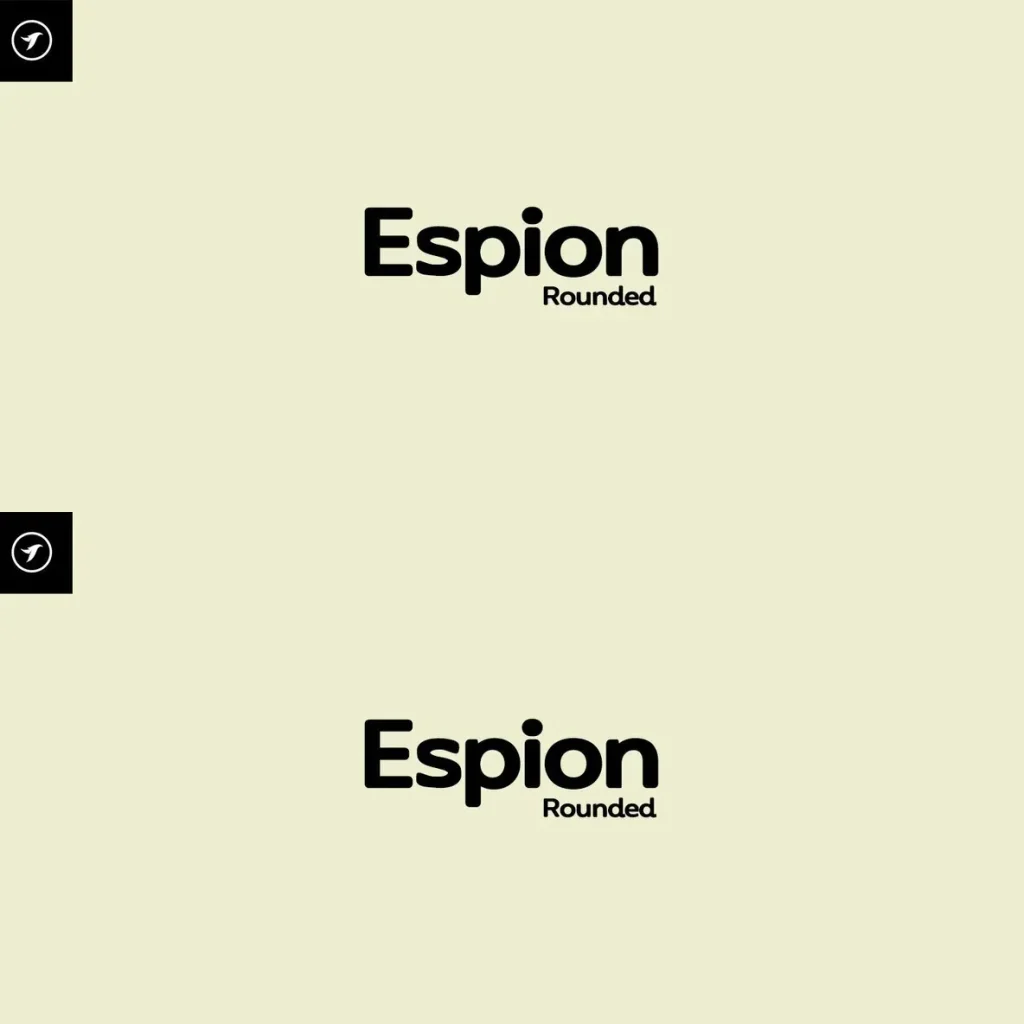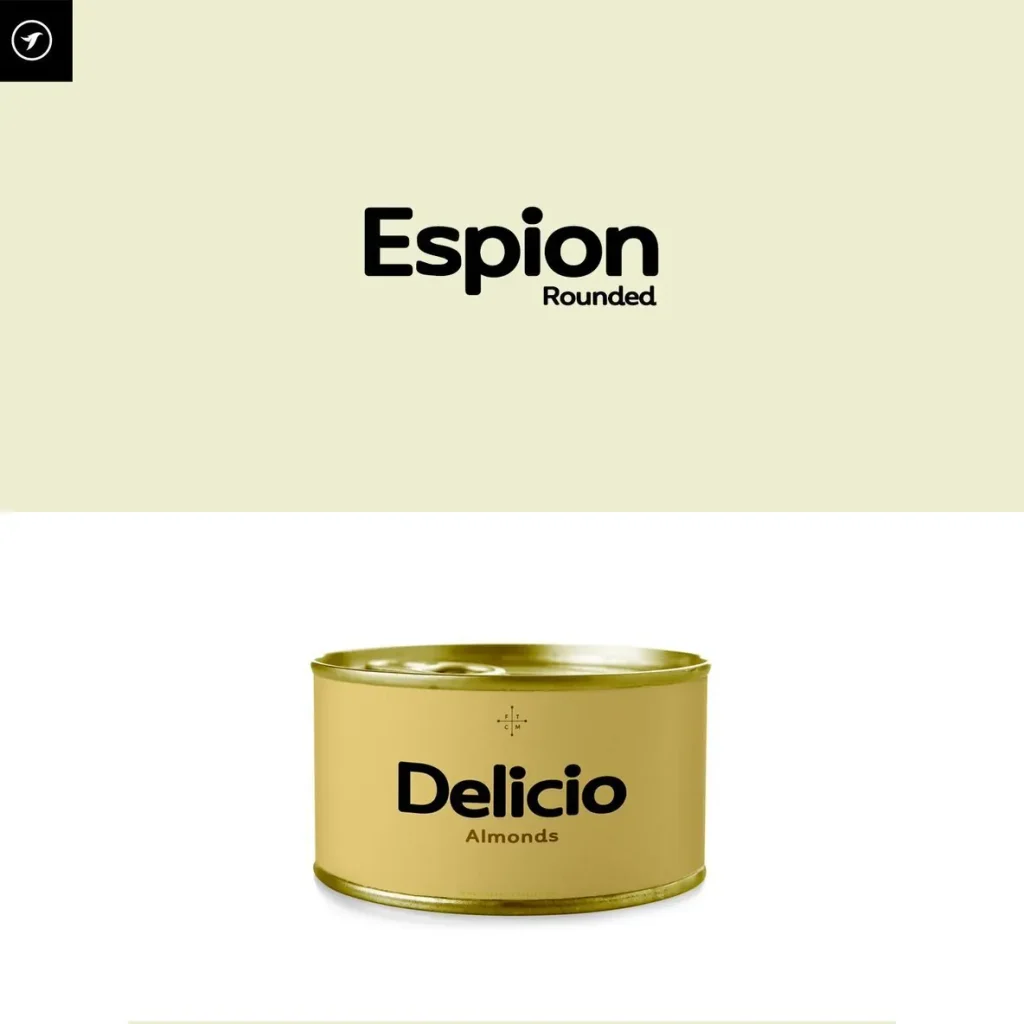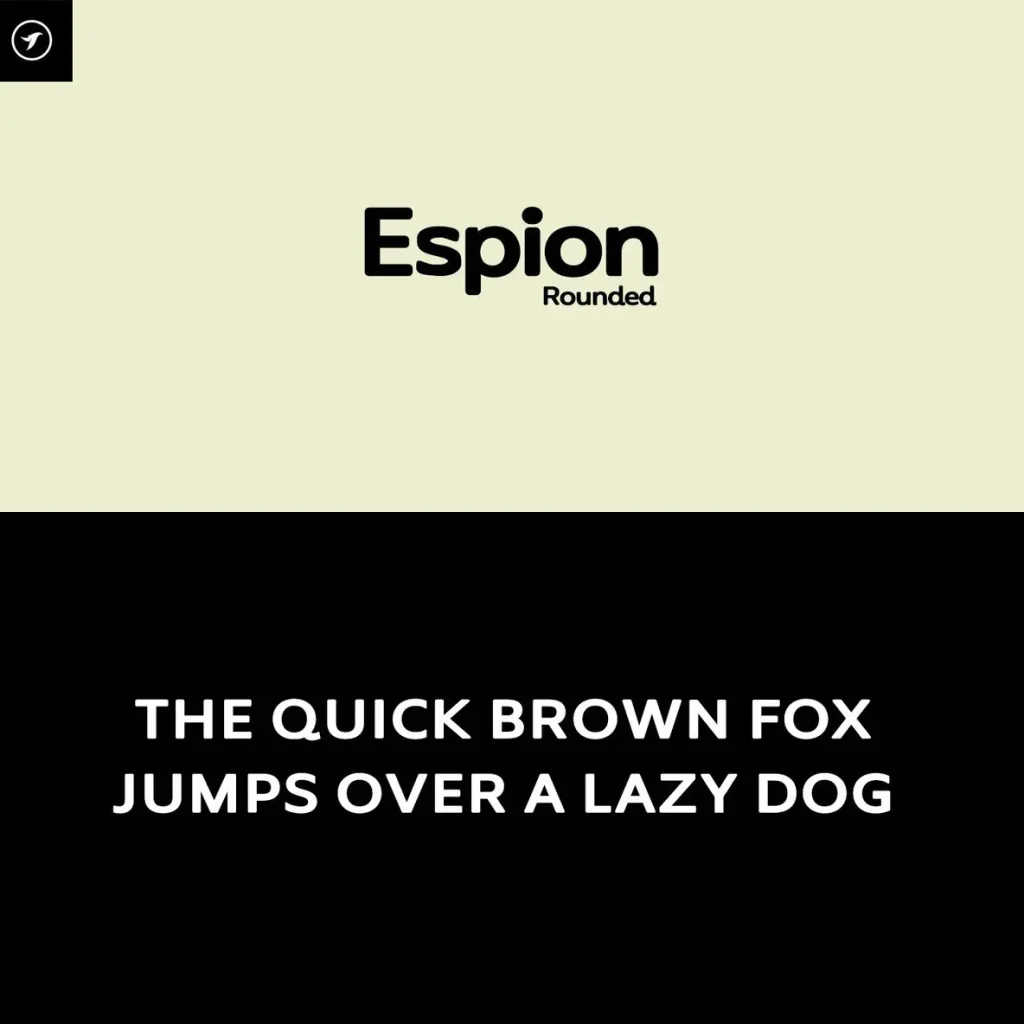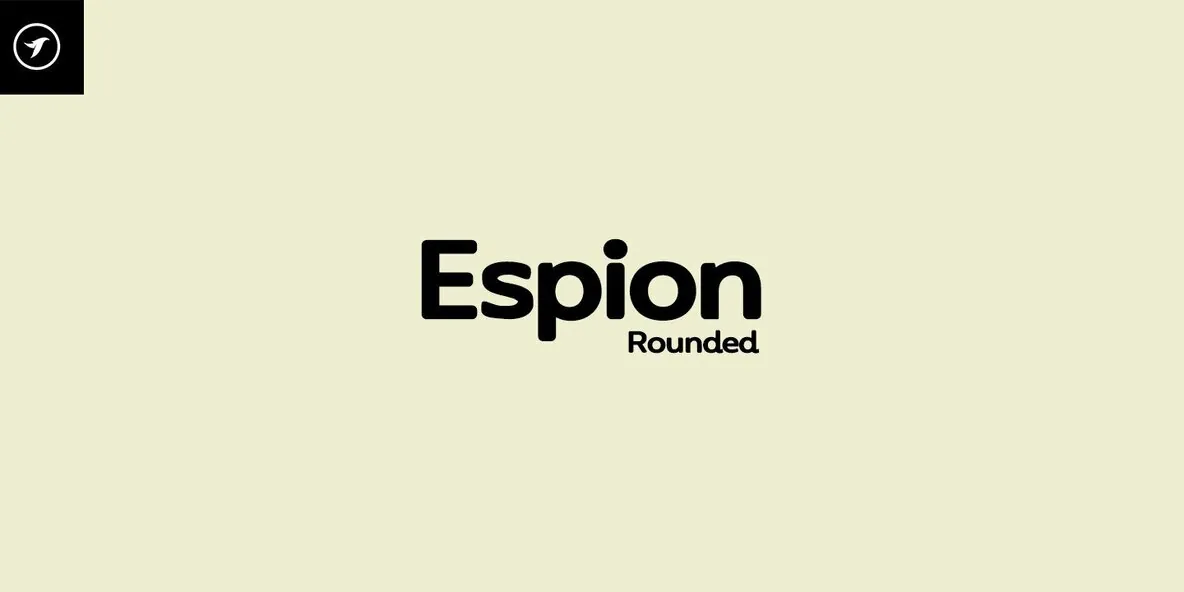
ESPION — Soft Geometry at Work
ESPION is a rounded modern typeface family built with smooth curves, geometric simplicity, and a clean contemporary appearance. Its soft edges and balanced proportions give the font a friendly yet professional typographic style, making it well suited to design systems that need clarity without feeling cold.
The family brings modern minimalism together with an approachable character. Use ESPION across branding, user interfaces, packaging, editorial layouts, and creative visual communication where a rounded geometric typeface can add structure, warmth, and a polished visual tone.